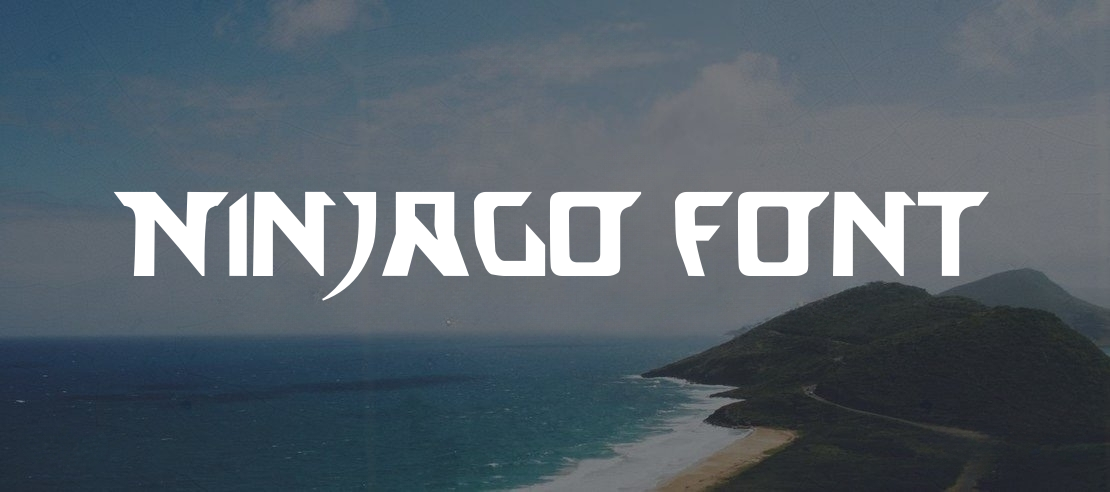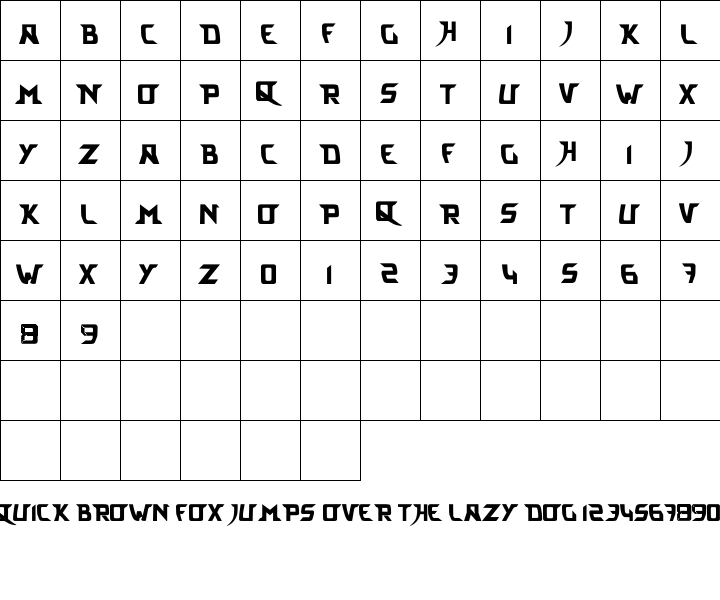
Ninjago font is a group member of the display typeface font, the style of this font is a movie. It was designed to resemble the writing on the Spinjitzu Spinner toy from this typeface toy line.
It can be used for a variety of purposes, such as Decorative purposes, such as on website headers or in graphics, As a display font in larger sizes, For children’s projects, such as coloring books or school assignments, etc.
Designer of Ninjago font
This unique style of font is designed by a famous graphic designer, who is known, as Porfranco Fernandez.
This font family includes a regular style, this regular style consists of glyphs, digits, capital letters, small letters, punctuation, a set of characters, and a wide range of language support.
| Designer | Porfranco Fernandez |
What font is the Ninjago font?
This is a group member of the display typeface font, the style of this font is the movie. This typeface was designed to resemble the writing on the Spinjitzu Spinner toy from the Ninjago toy line.
Who created the Ninjago font?
This unique style of font is designed by a famous graphic designer, which is known, Porfranco Fernandez.